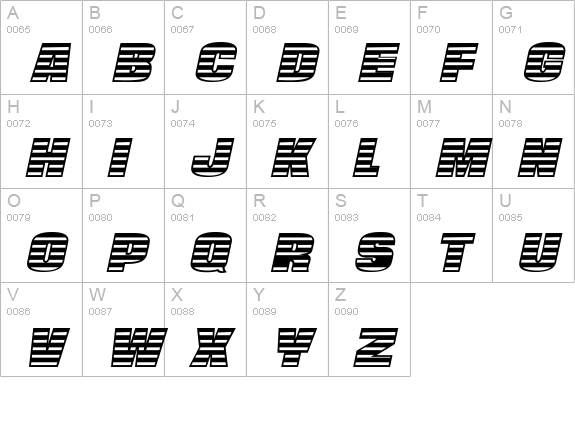
StriperBoldCaps Italic Font Details
StriperBoldCaps Italic is a distinctive, italic variant in the StriperBoldCaps typeface family \xE2\x80\x94 well suited to design and typography projects.
Introducing StriperBoldCaps Italic font, a stylish and modern typeface that exudes elegance and sophistication. This unique font features bold capital letters with a sleek italicized design, making it perfect for adding a touch of class to any project. What sets StriperBoldCaps Italic font apart is its versatility and eye-catching appeal. Whether you're designing a logo, creating marketing materials, or working on a branding project, this font is sure to make a statement. And the best part? StriperBoldCaps Italic font is available for free download at FontsMarket.com. So you can easily access this stunning font and use it in your creative endeavors without any cost. Don't miss out on this opportunity to enhance your designs with the striking beauty of StriperBoldCaps Italic font. Download it today and let your creativity shine!